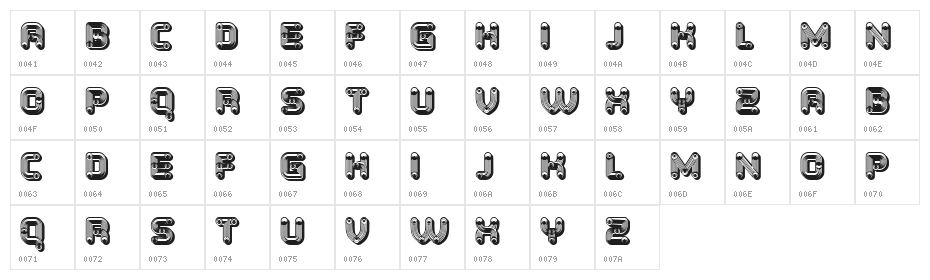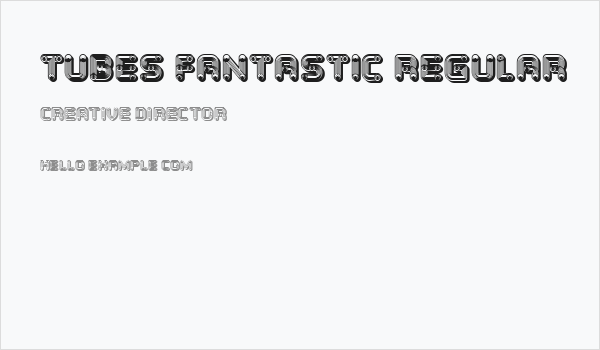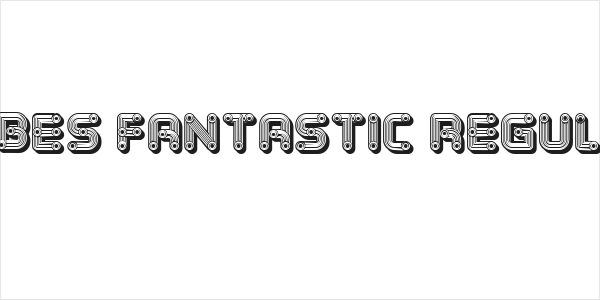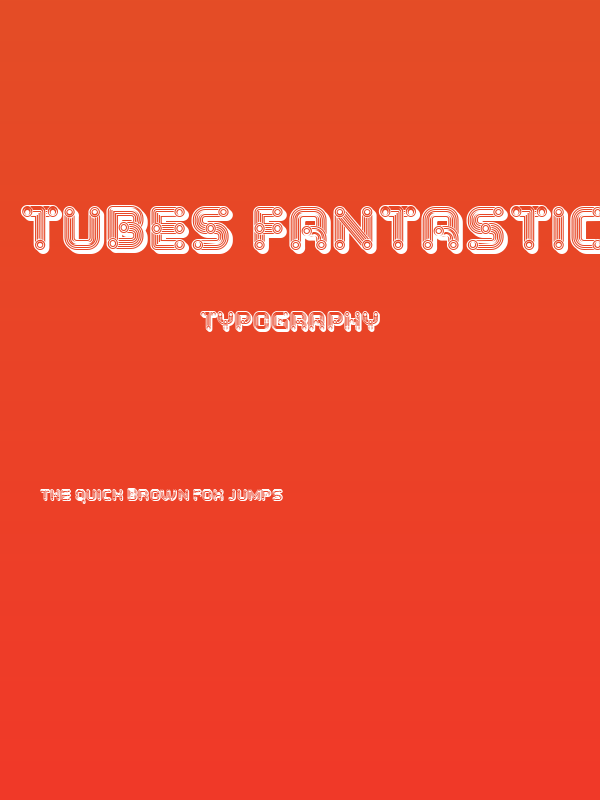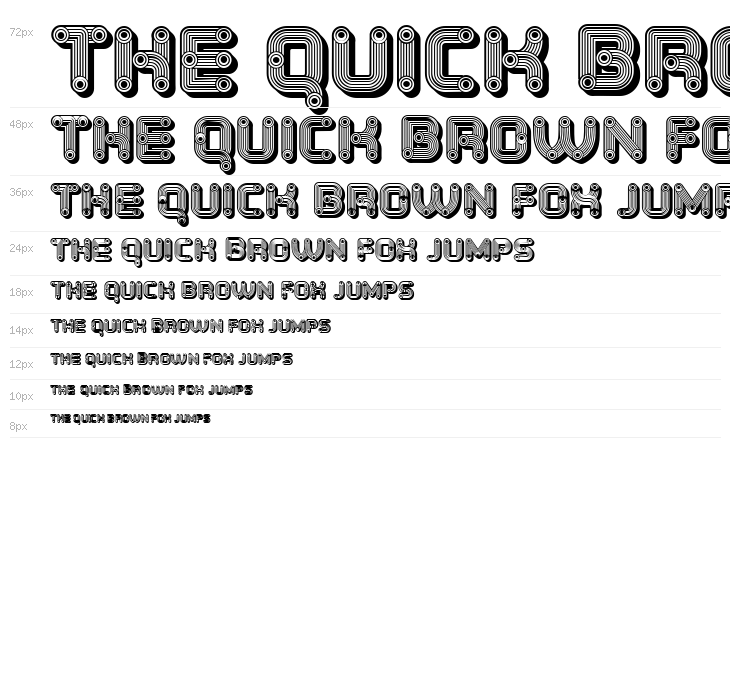
Tubes Fantastic Regular Font
Tubes Fantastic Regular Description
This font features a highly decorative and intricate design, characterized by its tubular, circuit-like appearance. Each letter is composed of multiple parallel lines that create a sense of depth and complexity. The design incorporates circular elements at the ends of strokes, resembling connectors or nodes, which enhance its technological and futuristic aesthetic. The overall look is bold and eye-catching, making it suitable for projects that require a strong visual impact. The font maintains consistent line thickness throughout, ensuring readability despite its detailed design.
| Overall Style | Futuristic, Technological |
| Proposed Projects | Ideal for technology-themed posters, sci-fi book covers, video game titles, and branding for tech companies. |